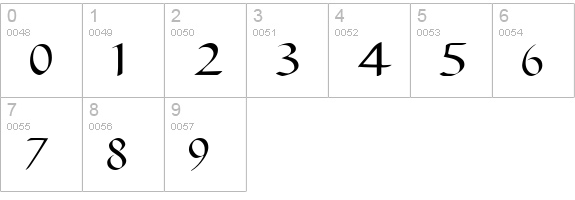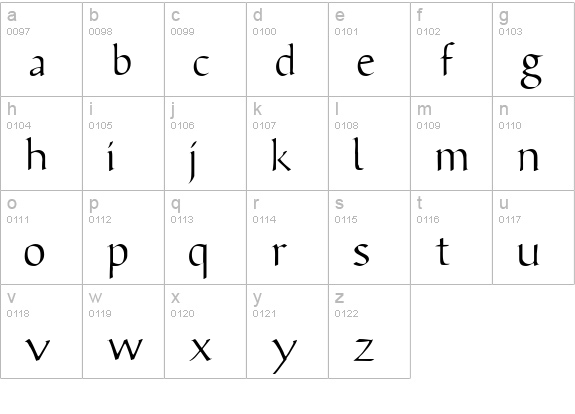
Publius font is a timeless and elegant typeface that exudes sophistication and class. Its sleek lines and graceful curves make it perfect for a wide range of design projects, from luxury branding to editorial layouts. With its classic yet contemporary feel, Publius font is sure to make a statement and elevate any design it is used in. One of the best things about Publius font is that it is completely free to download. That's right, you can get your hands on this stunning font at no cost at FontsMarket.com. Whether you are a designer looking to add a touch of elegance to your work or a business owner wanting to create a strong visual identity, Publius font is the perfect choice. Download it today and see the impact it can have on your designs!